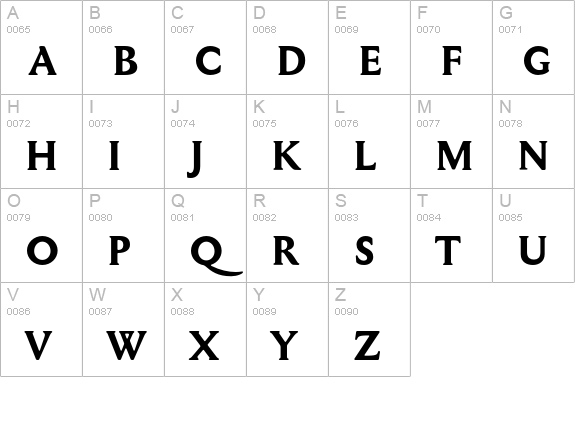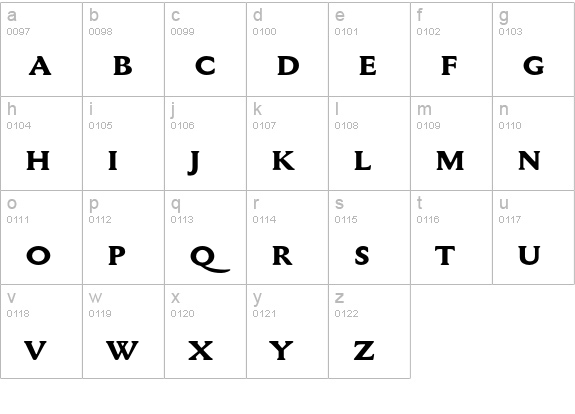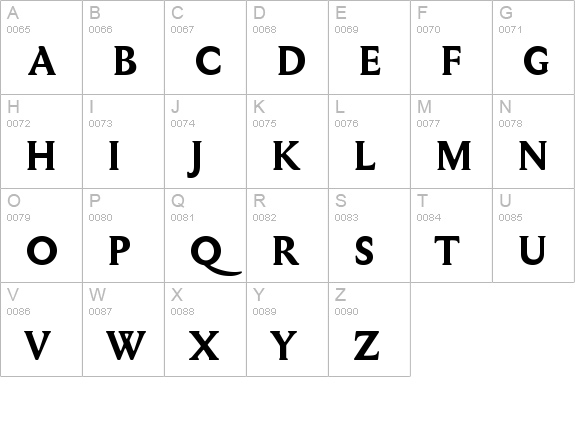
MediaevalSCOSF-Bold Font Details
MediaevalSCOSF-Bold is a strong, high-contrast variant in the MediaevalSCOSF typeface family \xE2\x80\x94 well suited to headlines, attention-grabbing titles, and strong calls-to-action.